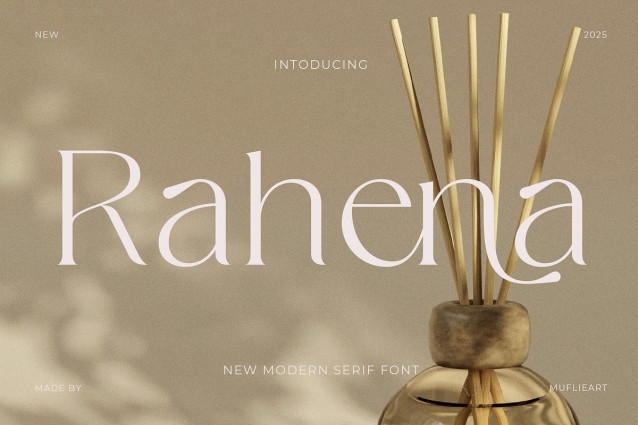
Rahena Font
Rahena Font – Elegant, Beautiful and Modern Serif Typeface. With its modern and minimalist look, Rahena brings a classy, ​​classy and clean look to your projects such as websites, modern logos, brand identities, social media quotes, wedding stationery, magazines and more!
Rahena features unique and classy uppercase letters from A to Z, and comes with unique alternate fonts, making Rahena a beautiful, customizable font for a variety of projects and jobs you want.
Rahena is perfect for: logos, branding, wedding invitations, business cards, greeting cards, posters, magazines, social media, calendar prints and websites.